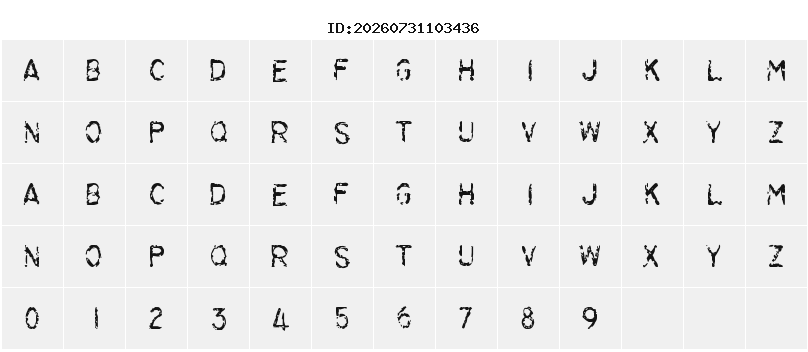
Lilac Malaria Preview
About Lilac Malaria.ttf
Lilac Malaria.ttf is a modern, elegant sans-serif font designed for ultimate readability and visual harmony. Perfect for branding, headlines, web design, and print materials.